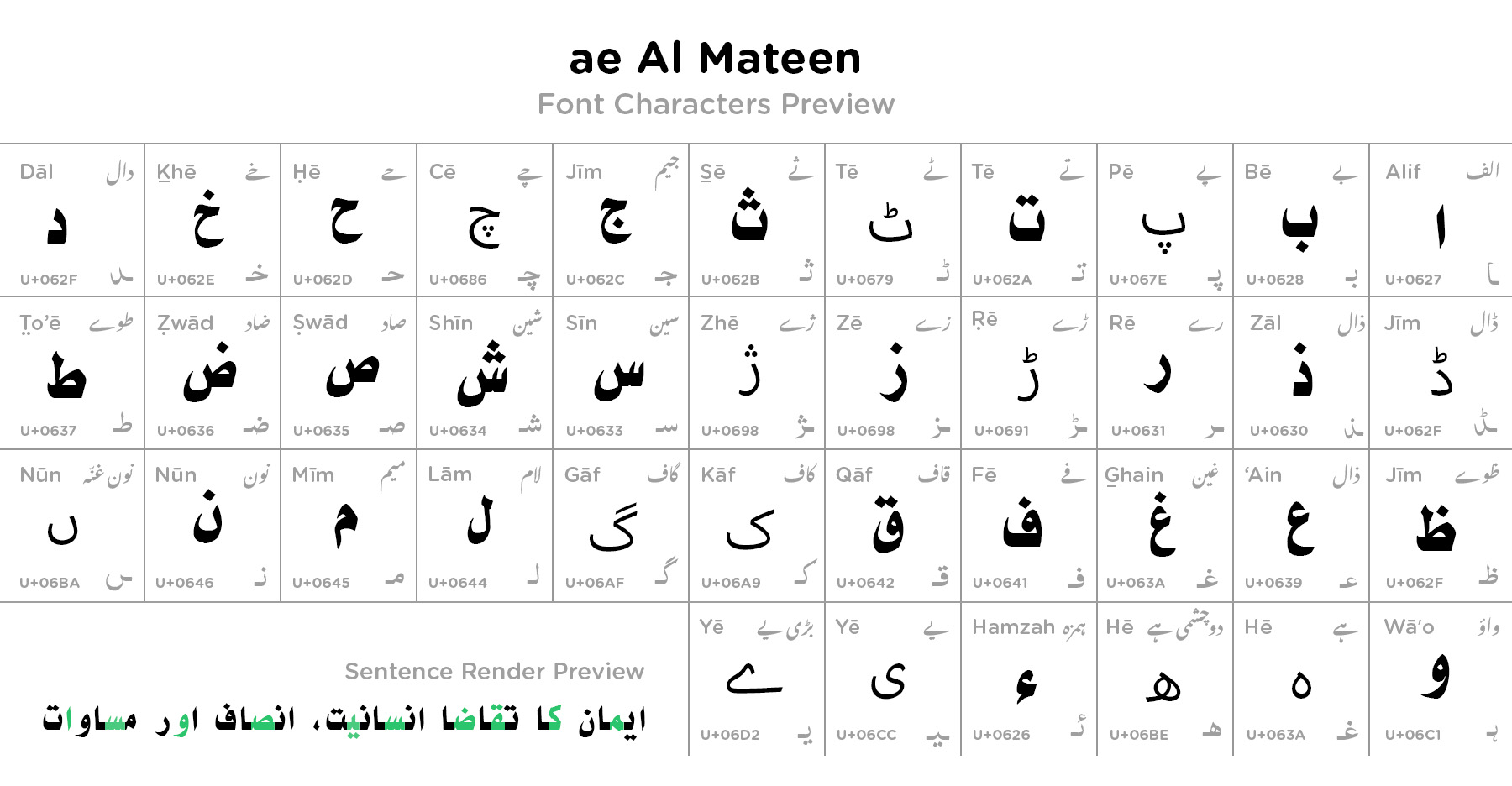
ae Al Mateen
Bold - Naskh -
Regenerated by font designer Nadim Shaikli, ae Al Mateen is a bold and wide Arabic font that was released in 2011 through Arabeyes, an Egyptian type foundry. Inspired by the classic Naskh script, the typeface offers a clear structure with a horizontal flow. Thus ensuring increased readability and a sense of timeless appeal. Minimal ornamentation contributes to a crisp, high-legibility aesthetic, making this font suitable for diverse design needs. While rooted in tradition, this font incorporates subtle modern touches with its monospaced letters and Kasheeda elements. This adds a visual to to the text and its bold appearance while maintaining a symmetrical balance.
Moreover, due its formal appearance, the font thrives in both digital and print media, finding applications in websites, social media graphics, posters, and branding materials. The font uses solid strokes, sharp angles, and subtly varying thickness throughout the letters, mimicking the artistic flow of a calligrapher’s qalam pen. Al Mateen excels in showcasing short bursts of text like headlines, posters, brochures, and logos. However, with proper sizing, it can also be used effectively for body text. With 477 letters and symbols and 256 glyphs, Al Mateen boasts broad utility and compatibility with various design projects. This font aligns with Unicode blocks and supports multiple languages, ensuring platform consistency and flexibility for evolving digital design needs.